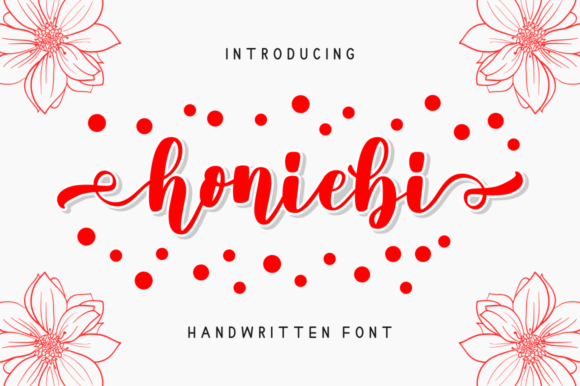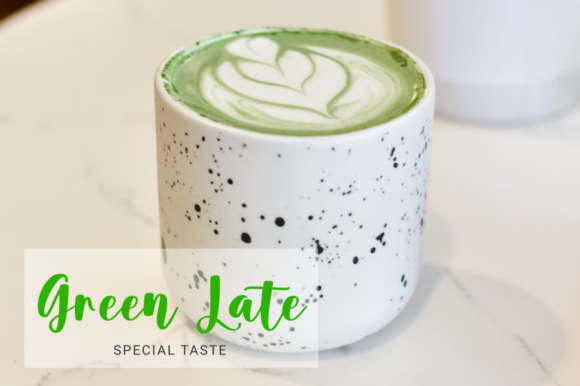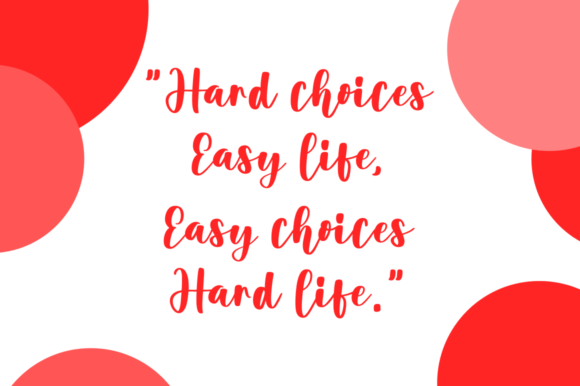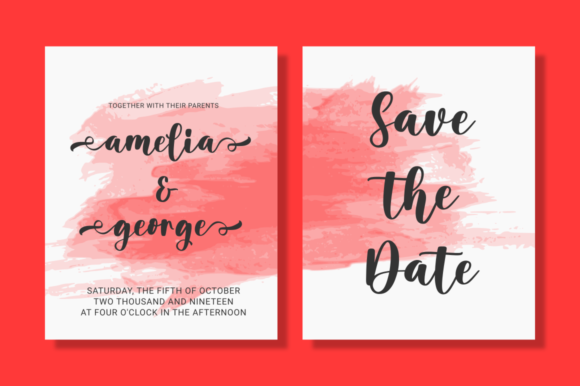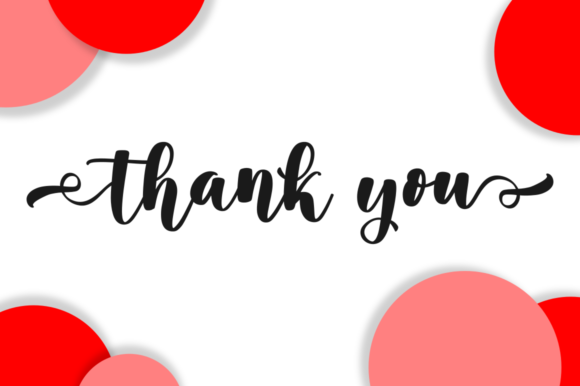
Honiebi Font
About Honiebi Font
Honiebi is a is a sweet and modern handwritten font. Get inspired by its authentic feel and use it to create gorgeous wedding invitations, beautiful stationary art, eye-catching social media posts, and cute greeting cards.